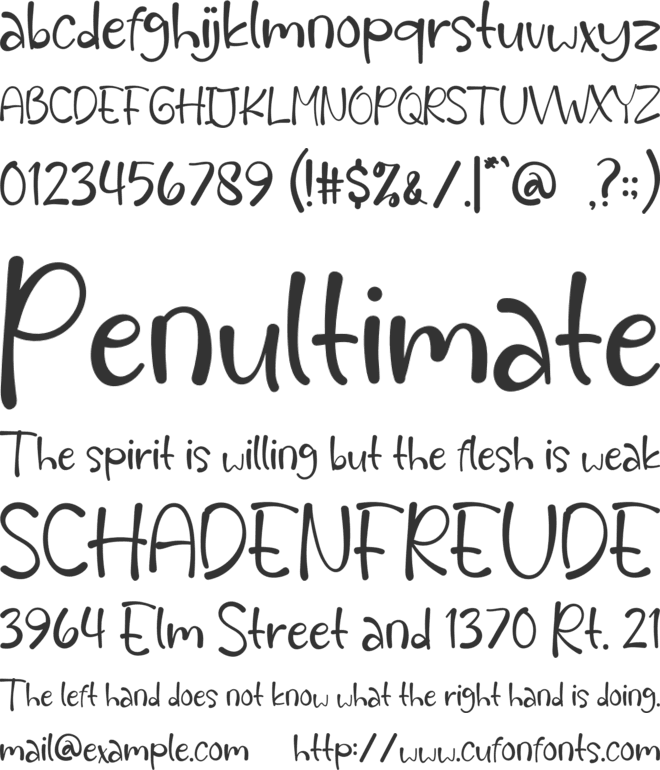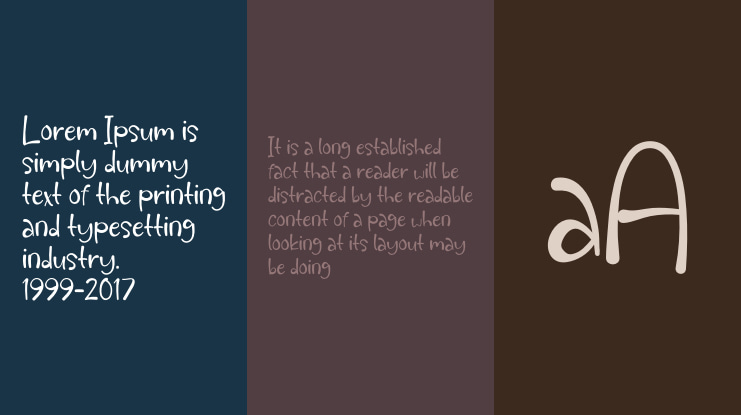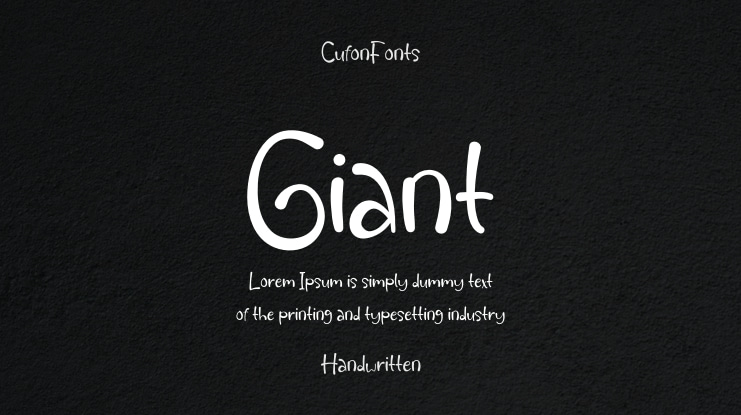
Giant Font
Giant is a cute display font. Clean and a little bit quirky, this font is the perfect fit for all of your logos, branding, social media, and crafty DIY projects.Attention :Giant handwriting Font is prohibited to use this font for commercial purposes or for profit without the permission of the author/admin, without being known to use this font without permission, will be subject to sanctions 5x the specified price.This font is used only for demos (Demo license)If you want to use this font for commercial use please contact email:  click the link below:https://www.creativefabrica.com/product/giant-5/ref/745146/If you want to see more other fonts, please click:https://www.creativefabrica.com/designer/erik-studio/ref/745146/thanks.